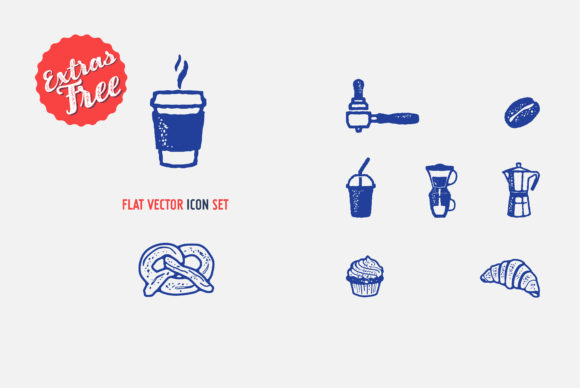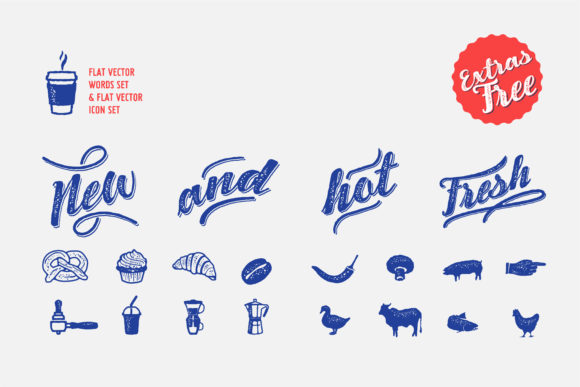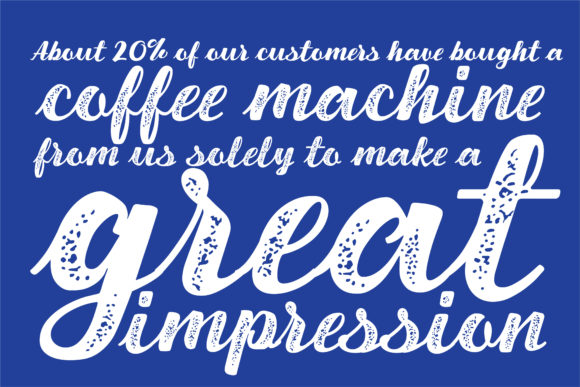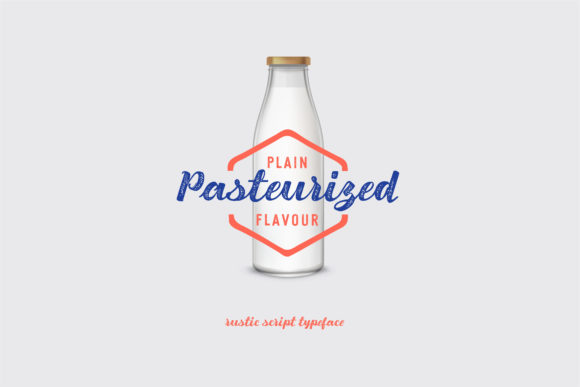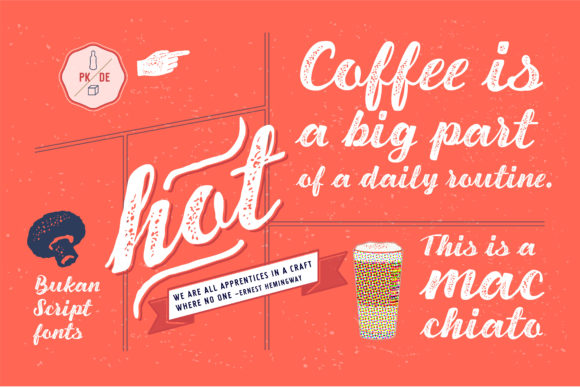
About Bugan Script: Rustic Font
Bugan Script: Rustic is an enchanting handwritten font. Its distinct and well balanced letters make this font a masterpiece. Fall in love with its incredibly versatile style and use it to create spectacular designs!